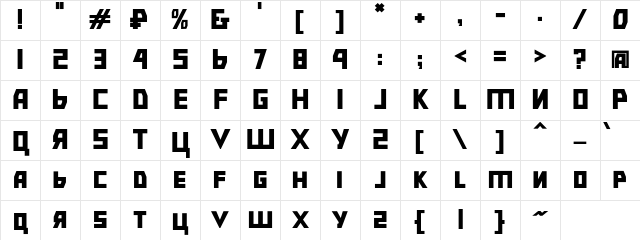
Bolshevik Bd Free Font
Bolshevik Bd
Style: Bd
Foundry: Cannot Into Space Fonts
Bolshevik Family
Bolshevik Bd
Complete Bolshevik Bd glyph index. Displaying only characters natively supported by Bolshevik Bd font.
Design Context for Bolshevik
Bolshevik is a composed and adaptable typeface that performs quietly and consistently across a wide range of design contexts. Its bold stroke weight gives it real presence on the page.
Pro Tip: Use Bolshevik in both headline and body roles to test its range before committing to a single application.
Who designed the Bolshevik Bd font?
This font was published by Cannot Into Space Fonts. Check the technical specs section for copyright and designer details.